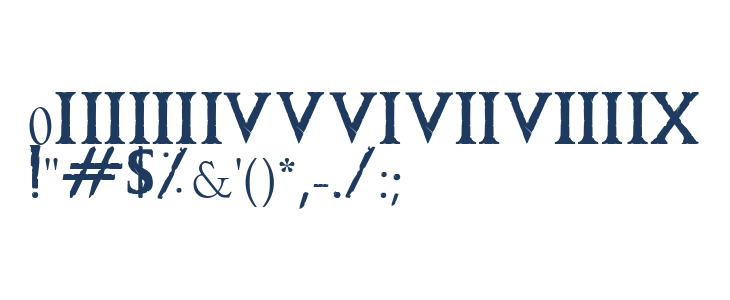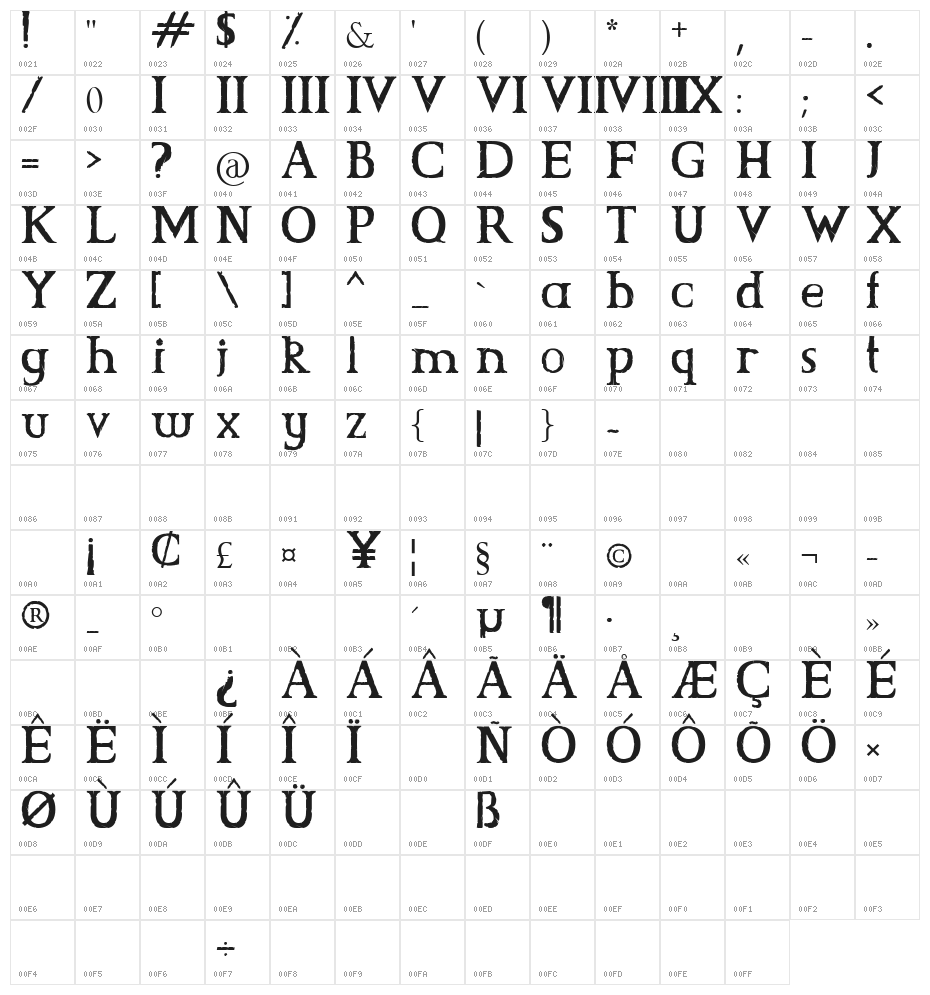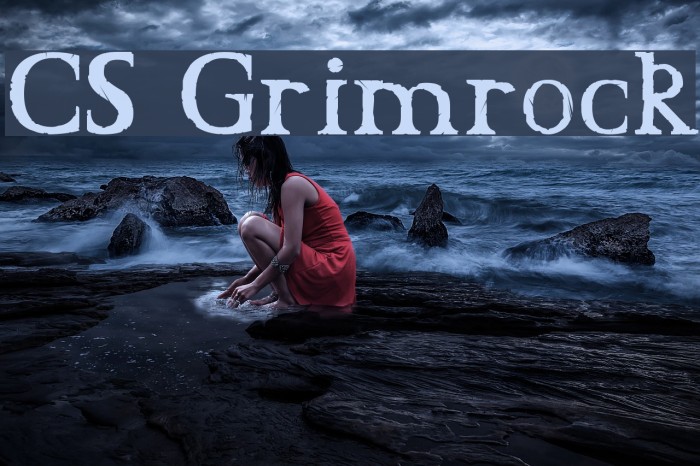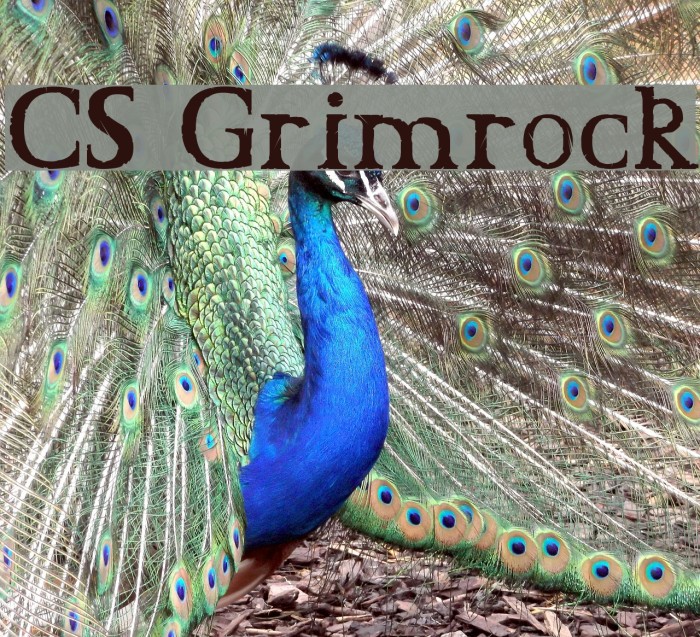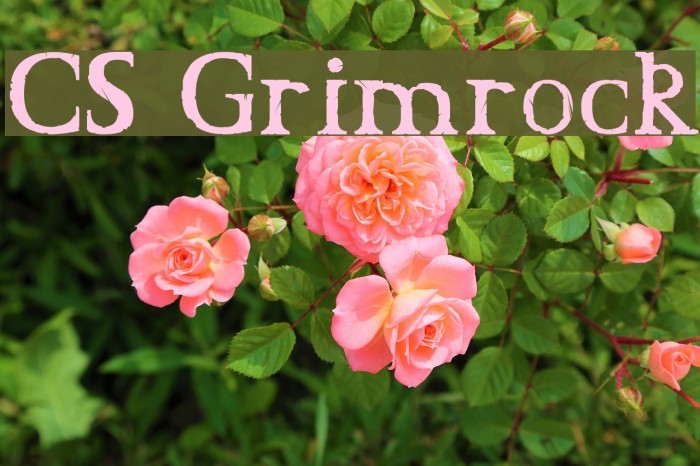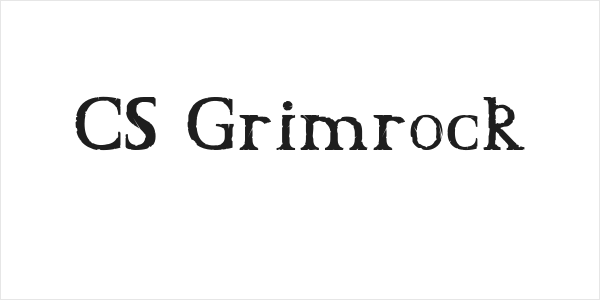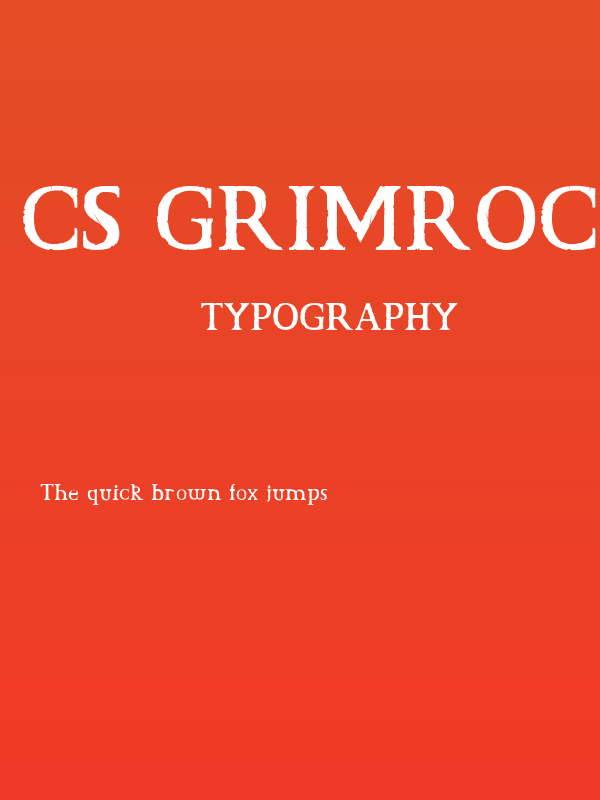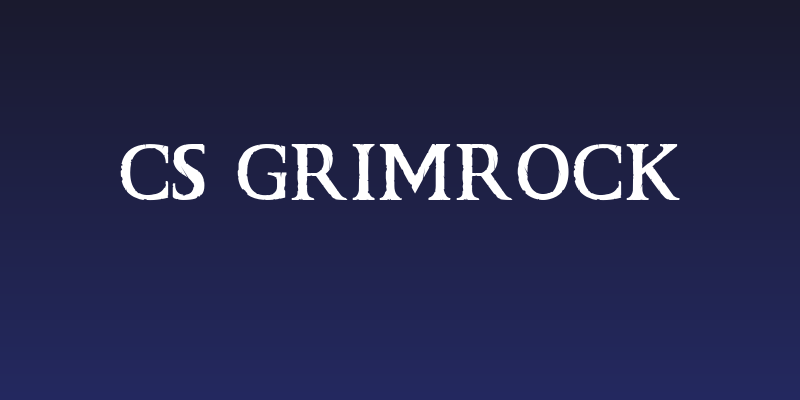
CS Grimrock Font
CS Grimrock Description
This font features a rugged, medieval-inspired design with a strong, bold presence. The characters have a distressed, hand-crafted appearance, reminiscent of ancient scripts or stone carvings. The uppercase letters are tall and commanding, while the lowercase letters maintain a consistent style with slightly more rounded edges. The numerals are stylized with a similar rough texture, adding to the overall antiquated feel. Special characters are uniquely crafted, maintaining the font's distinctive aesthetic. This font's unique style makes it ideal for projects that require a historical or fantasy theme.
| Use Case | Headlines, Logos, Decorative text |
| Proposed Projects | Ideal for fantasy book covers, medieval-themed games, historical event posters, and decorative signage. |